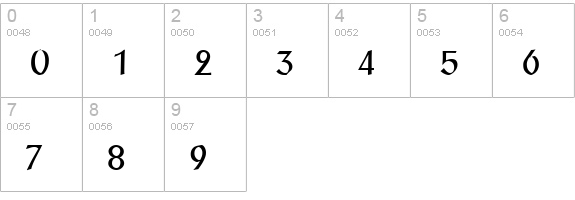
Post Antiqua BE Regular is the standard, neutral variant in the Post typeface family \xE2\x80\x94 well suited to general body text, paragraphs, and standard typographic work.
Post Antiqua BE Regular is a timeless and elegant serif font that exudes sophistication and classic charm. With its clean lines and graceful curves, this font is perfect for adding a touch of refinement to any design project. Whether you're creating invitations, brochures, or logos, Post Antiqua BE Regular will elevate your work with its understated beauty. And the best part? You can download Post Antiqua BE Regular for free at FontsMarket.com. This means you can access this exquisite font without having to spend a dime, making it a valuable addition to your font collection. Don't miss out on the opportunity to enhance your designs with the timeless allure of Post Antiqua BE Regular – download it today and let your creativity shine.